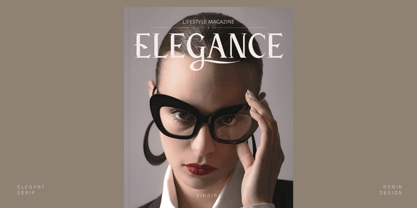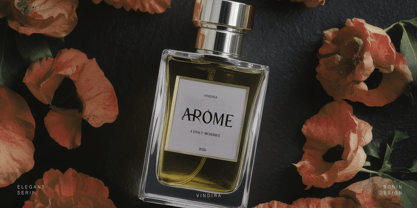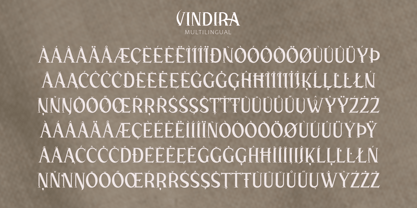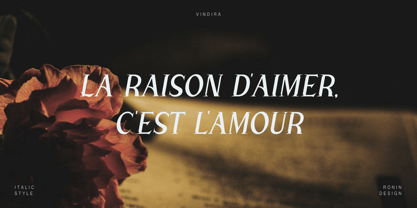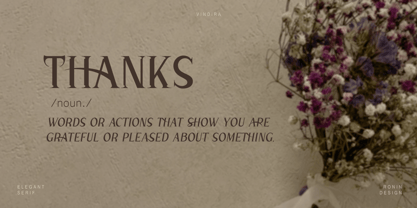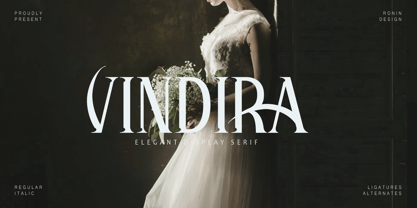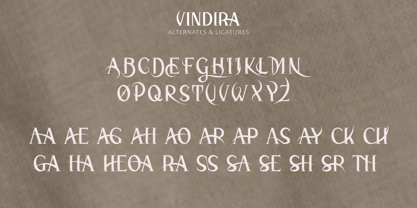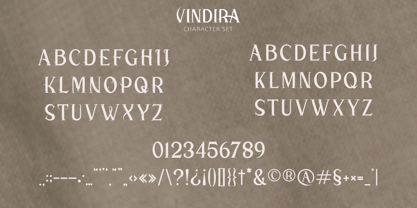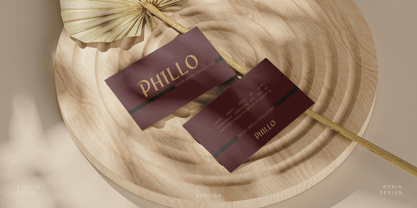
Vindira
by Ronin Design
The Vindira Font Family was designed by RoninDesign and published by Ronin Design. Vindira contains 2 styles and family package options. More about this family
Vindira is a elegant display serif designed to bring elegance and emotion into modern design. With its romantic tone and timeless character, Vindira instantly elevates headlines, logos, and visual storytelling. Perfect for luxury branding, wedding designs, fashion editorials, book covers, and artistic quotes, Vindira delivers a graceful yet bold presence that feels cinematic and refined. Its expressive details and stylish alternates make every word feel intentional and memorable Vindira is made for designers who want their typography to feel beautiful, dramatic, and unforgettable. Features : • Vindira regular and italic • All caps • Various alternates • Various ligatures • Ton of glyphs • Multilingual accent • PUA encoded characters
Designers: RoninDesign
Foundry: Ronin Design